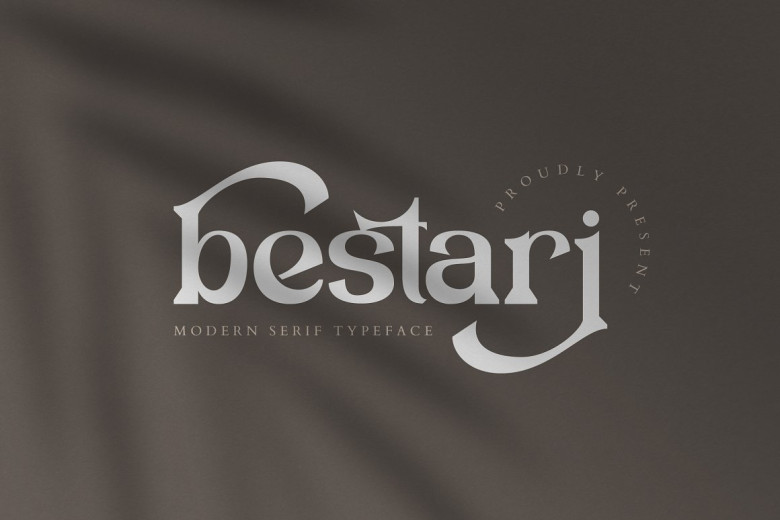
Bestari Font
Bestari is a modern serif typeface designed specifically for making beautiful typography. Creating branding projects, designing a logo, developing a website, making a wedding design, social media post and advertisements, creating product packaging, and product design, label, photography, watermark, invitation, stationery, and more projects that need handwriting taste.
Bestari Serif Font